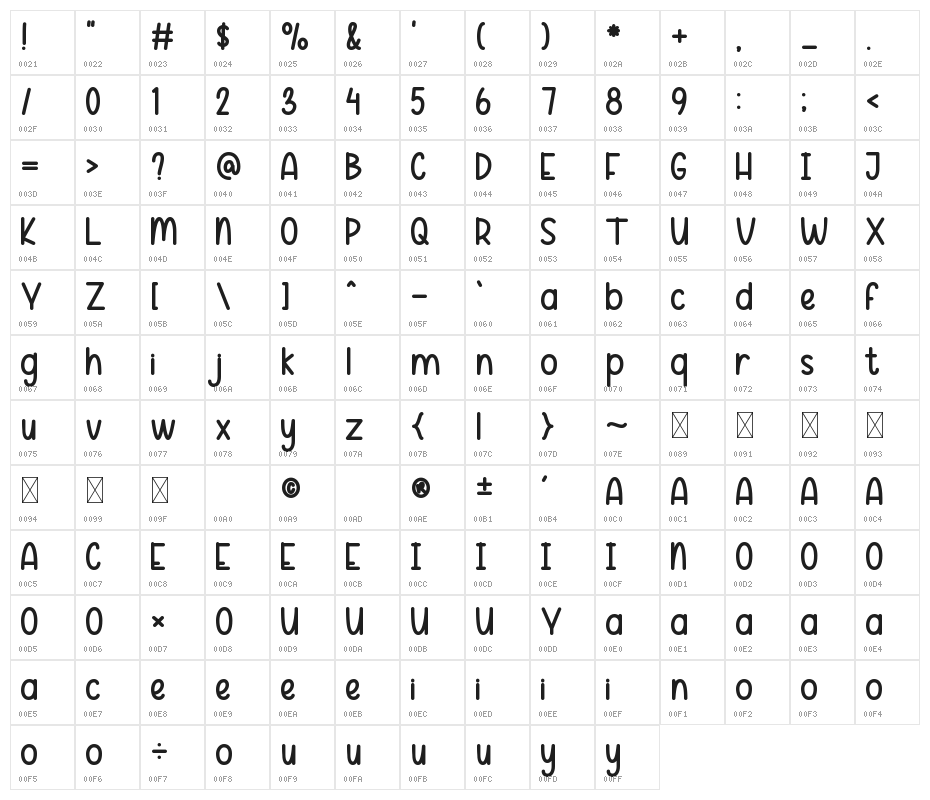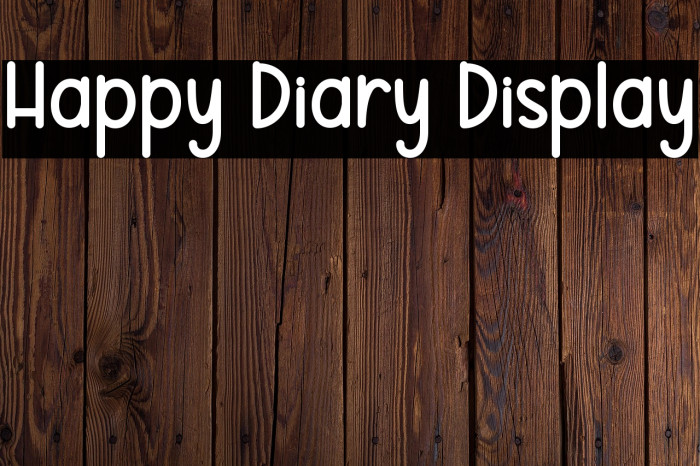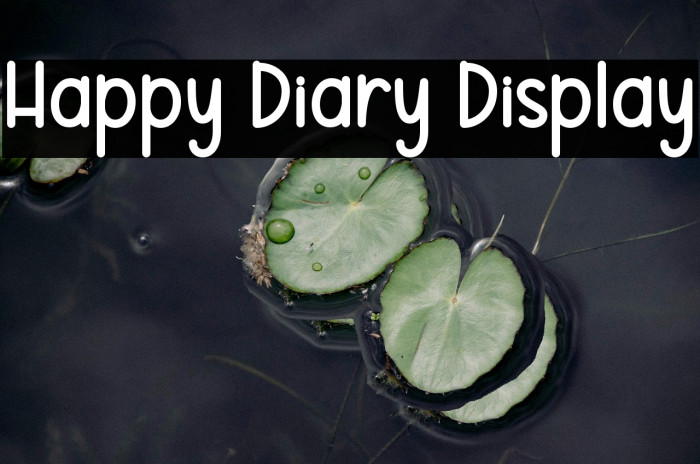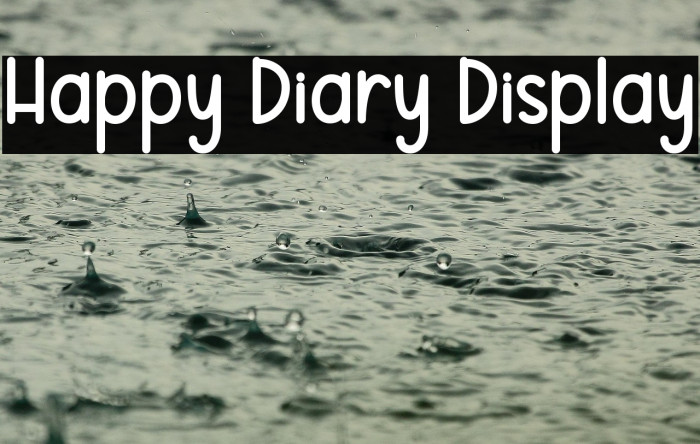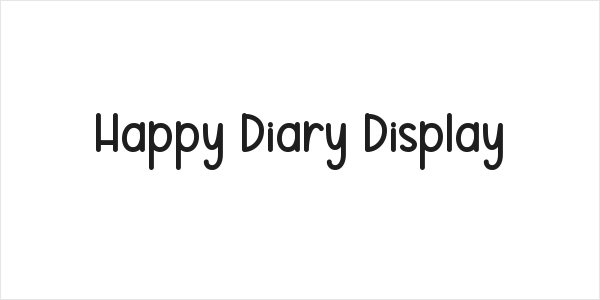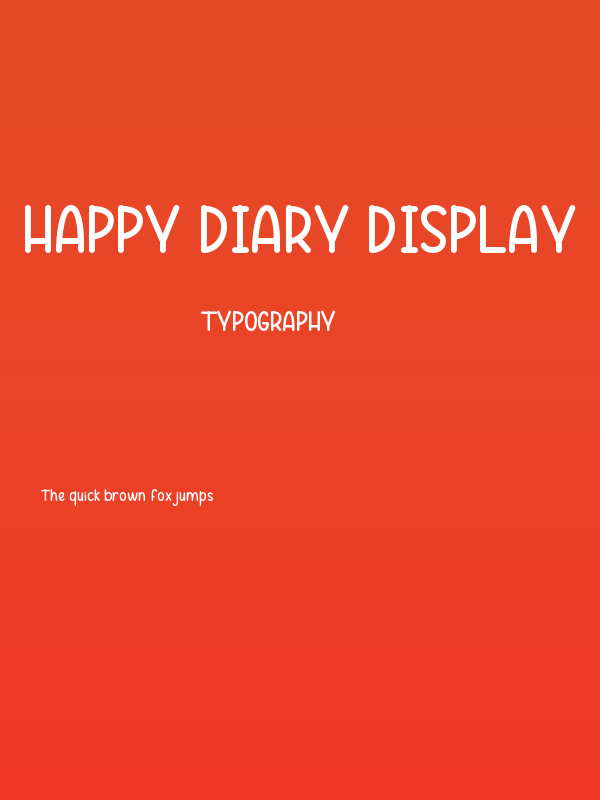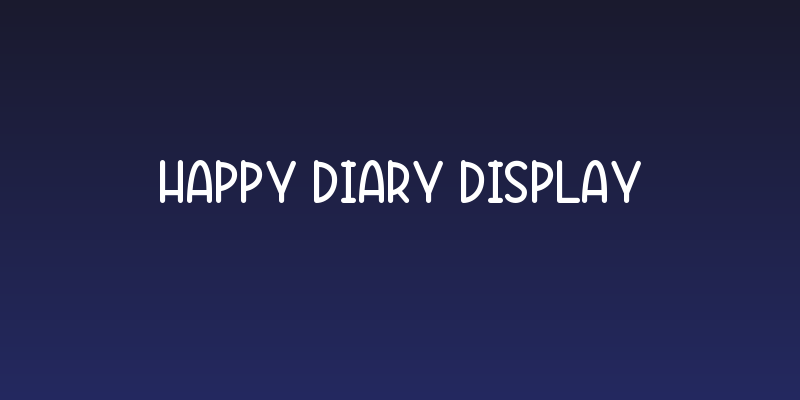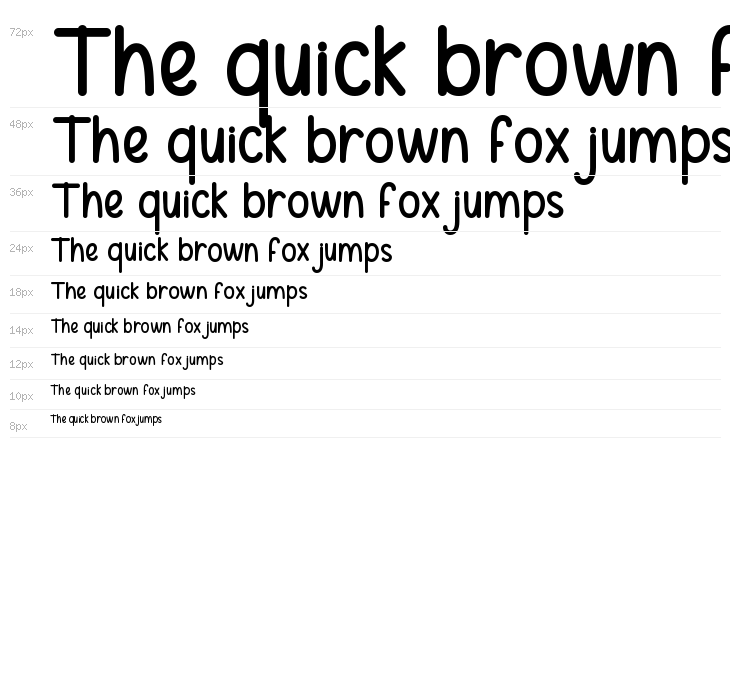
Happy Diary Display Font
Happy Diary Display Description
A playful, rounded font with a handwritten style, featuring uniform stroke widths and a casual appearance.
| Overall Style | Casual, Playful |
| Use Case | Headlines, Informal text, Branding |
| Proposed Projects | Children's books, casual invitations, playful branding. |